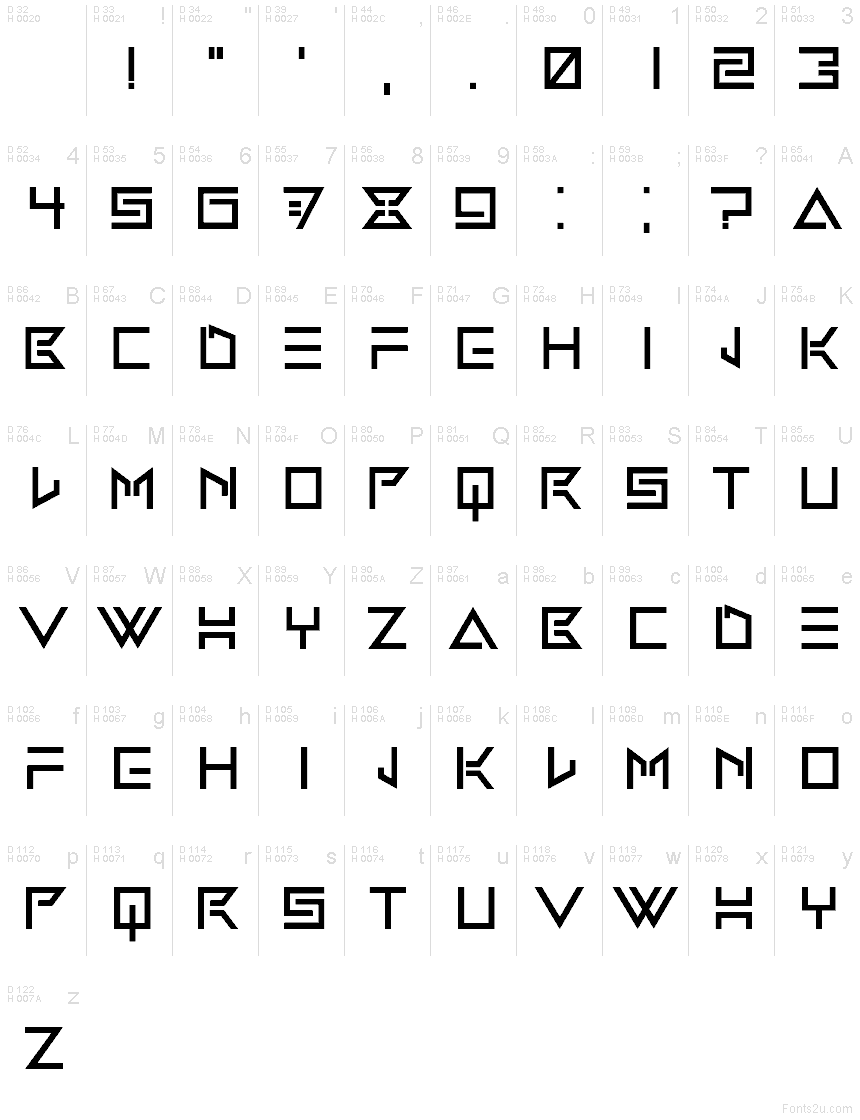
Testament Regular
Testament font by Vladimir Nikolic is an expanded display font that was meticulously built on top of geometric foundations. Its clear and clean appearance suits it with minimalist, contemporary, and futuristic presentations that match its beauty. Create the most impressive project ideas with this visual journey provided generously for free.